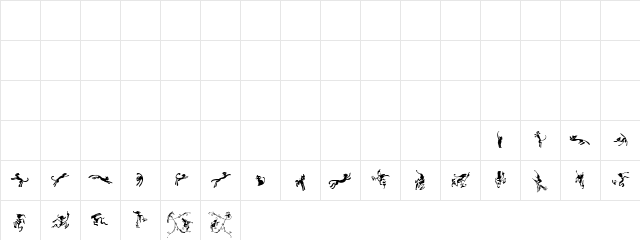
Halloweenies Demo Regular Free Font
Halloweenies Demo Regular
Design Context for Halloweenies Demo
Halloweenies Demo is a composed and adaptable typeface that performs quietly and consistently across a wide range of design contexts.